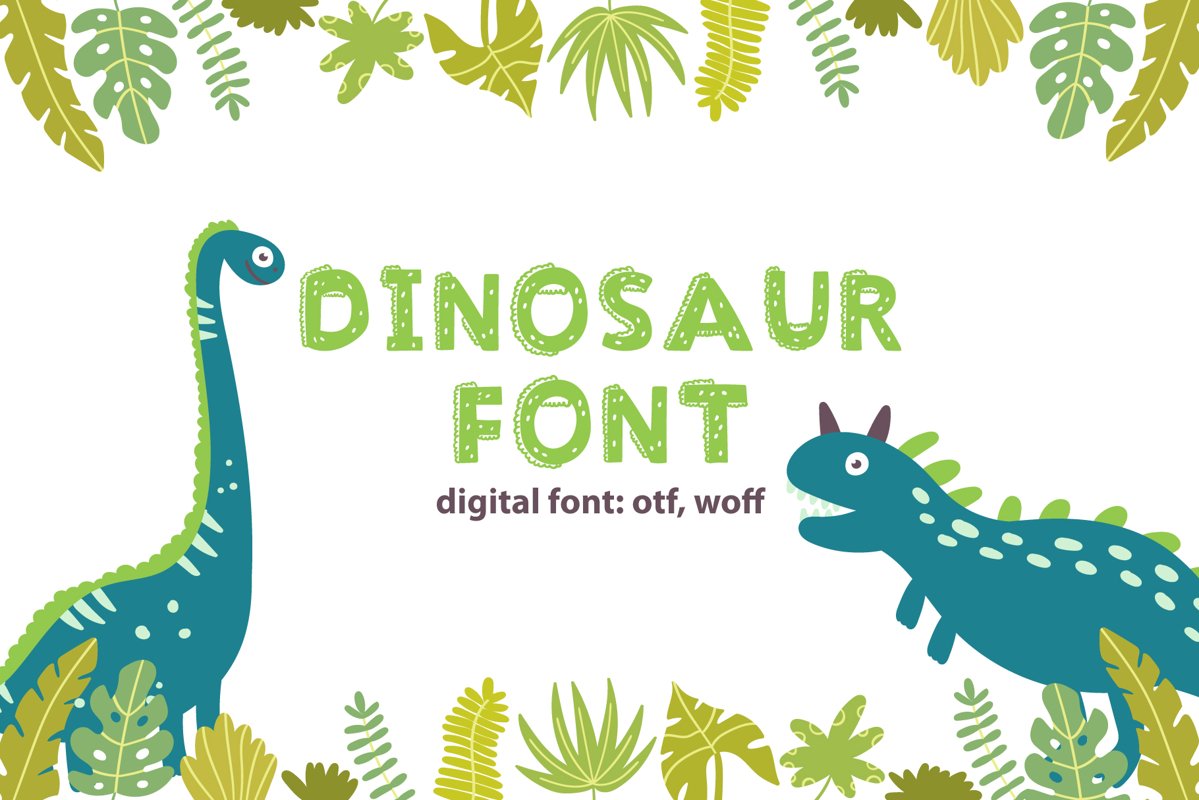
Dino World great dinosaur font for kids.
Dino World is an amazing display font. It features dinosaurs-themed characters and will add a exquisite and fun look to any kids and school projects!
DinoWorld